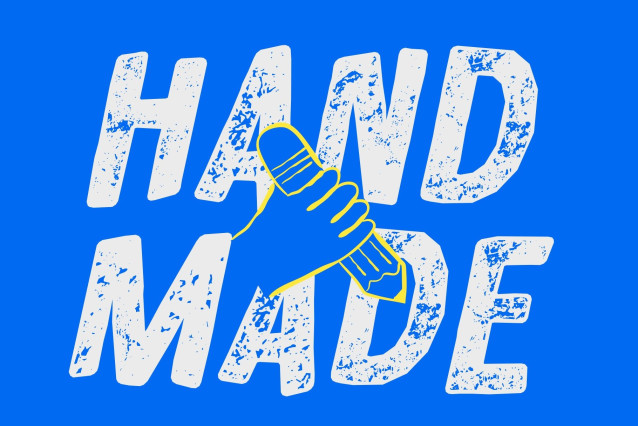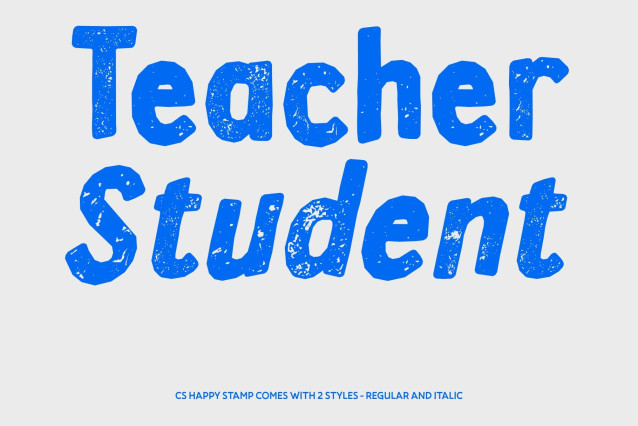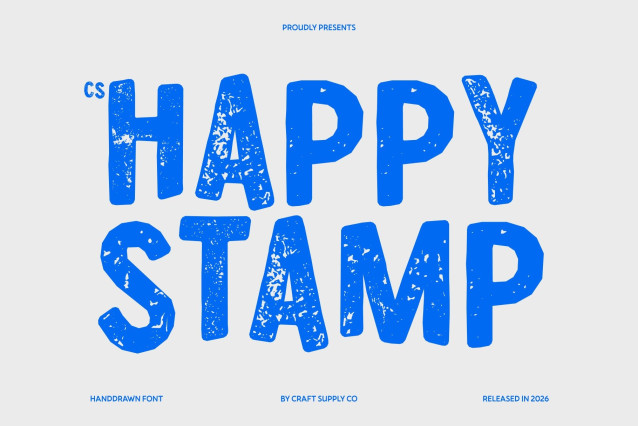
CS Happy Stamp Font
CS Happy Stamp – Fun Font: A Playful & Cheerful Sans-Serif Typeface
Bold & Fun Design with Stamped Character
This is a modern sans-serif display font with a quirky, playful personality and a subtle stamped texture. Its bold structure gives it strong visual presence, while the textured finish adds a handcrafted, imperfect charm that enhances its lively and expressive feel.
Cheerful Shapes with a Lighthearted Vibe
Designed to evoke joy and positivity, this font features soft expressive touches and dynamic letterforms that feel energetic and fun. The stamped effect introduces a slightly vintage, printed look that makes every word feel more organic and full of character.
Perfect for Joyful and Creative Projects
This font is ideal for children’s books, colorful posters, playful branding, and promotional materials. Its cheerful personality makes it perfect for designs that aim to inspire happiness, creativity, and emotional connection across all ages.